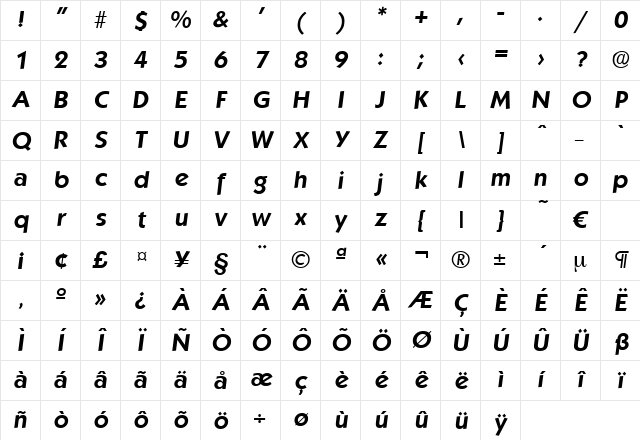
Koblenz-DemiBoldIta Regular
Design Context for Koblenz-DemiBoldIta
Koblenz-DemiBoldIta is a composed and adaptable typeface that performs quietly and consistently across a wide range of design contexts. Its bold stroke weight gives it real presence on the page.